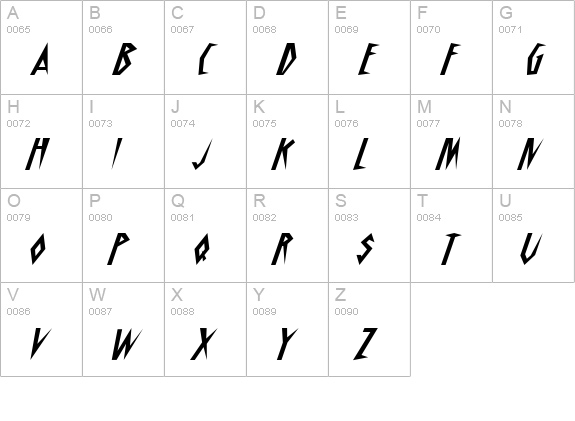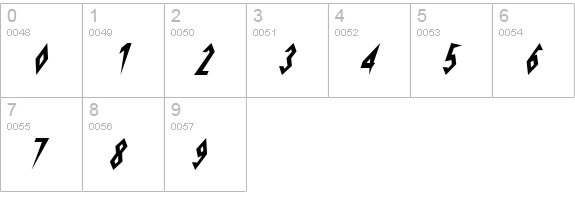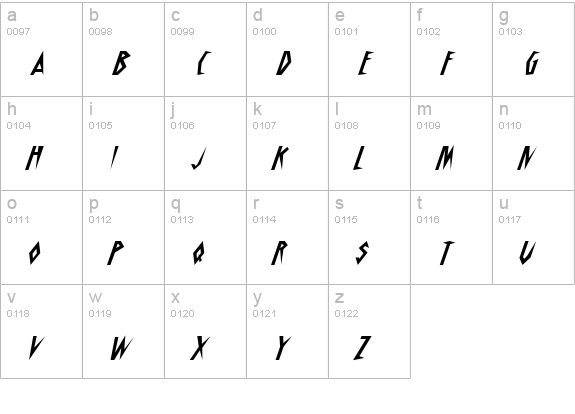
Schrill AOE Oblique is a distinctive, italic variant in the Schrill typeface family \xE2\x80\x94 well suited to design and typography projects.
Schrill AOE Oblique font is a stunning display typeface that exudes a sense of modernity and sophistication. With its unique and distinctive design, this font is perfect for adding a touch of elegance and style to any creative project. The Schrill AOE Oblique font features bold, slanted letterforms that create a sense of movement and dynamism. Its sleek and sharp edges give it a contemporary and edgy look, making it an excellent choice for branding, advertising, packaging, and more. This font is not only visually appealing but also highly versatile. It can be used for various purposes, from headlines and titles to logo designs and invitations. Its clean and legible characters ensure readability across different mediums and sizes. One of the best things about Schrill AOE Oblique font is that it is available for free download at FontsMarket.com. This means that you can easily access and use this beautiful typeface without any cost, allowing you to unleash your creativity without limitations. Whether you are a professional designer or someone looking to add a touch of sophistication to your personal projects, Schrill AOE Oblique font is an excellent choice. Its sleek and modern design, combined with its availability as a free download, makes it a must-have for anyone seeking a visually stunning and versatile typeface.